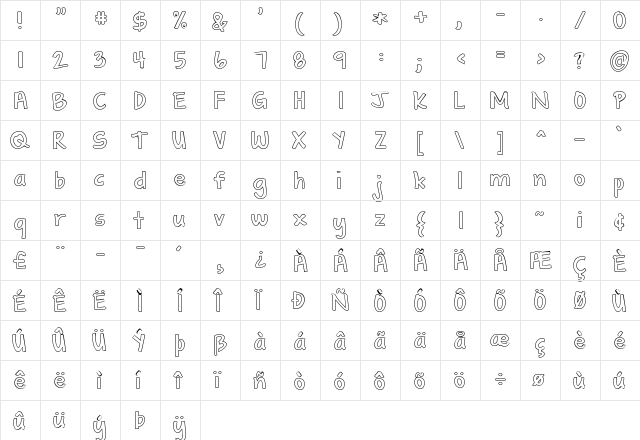
KG Shadow of the Night Regular
| Foundry | Kimberly Geswein |
| Designer | Kimberly Geswein |
Design Context for KG Shadow of the Night Typeface
KG Shadow of the Night is built around its visual character rather than neutral utility — its distinctive forms are designed to make an impression at display sizes.
Font Pairing: Pair with a clean neutral sans-serif for body copy to let KG Shadow of the Night's character lead without overwhelming the composition.
Pro Tip: Use KG Shadow of the Night exclusively at display sizes — it was designed to be seen, not read at length. Let a neutral companion handle body copy.